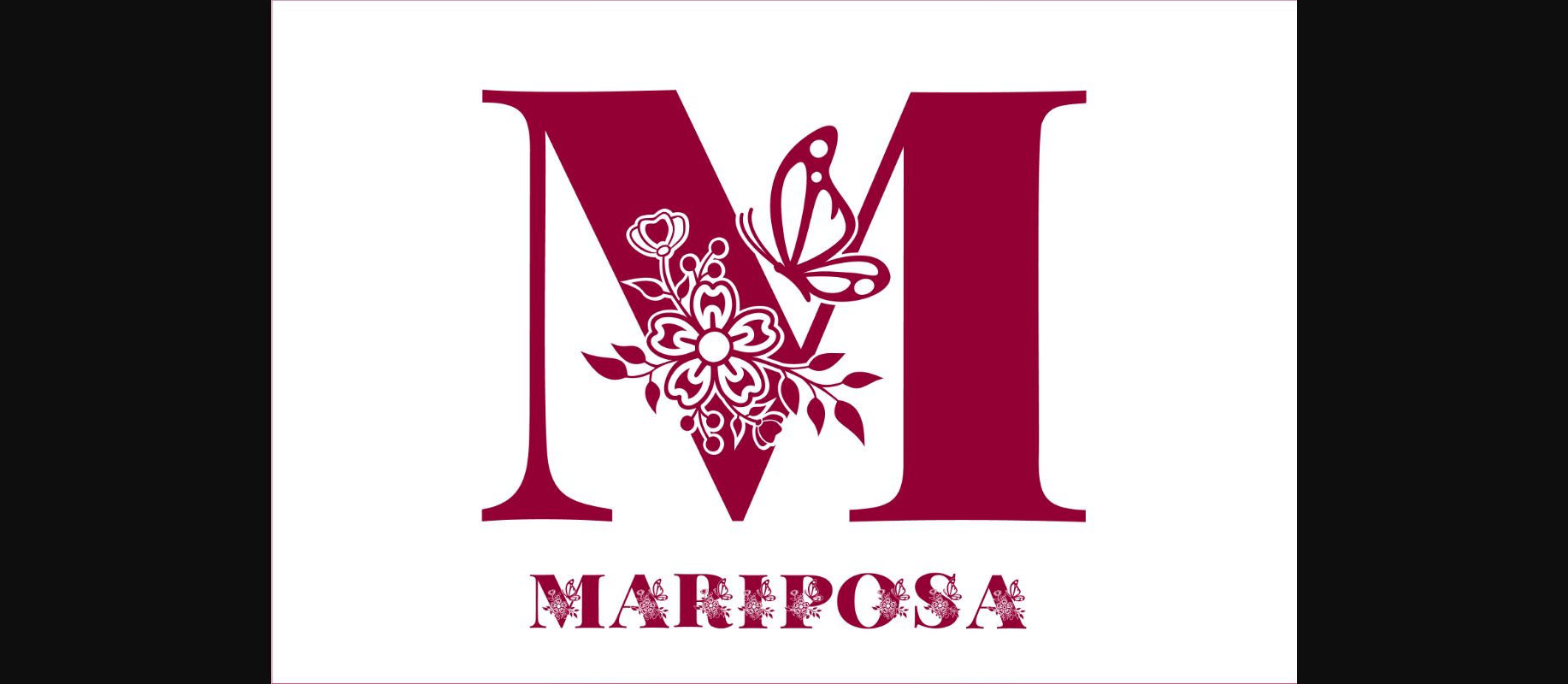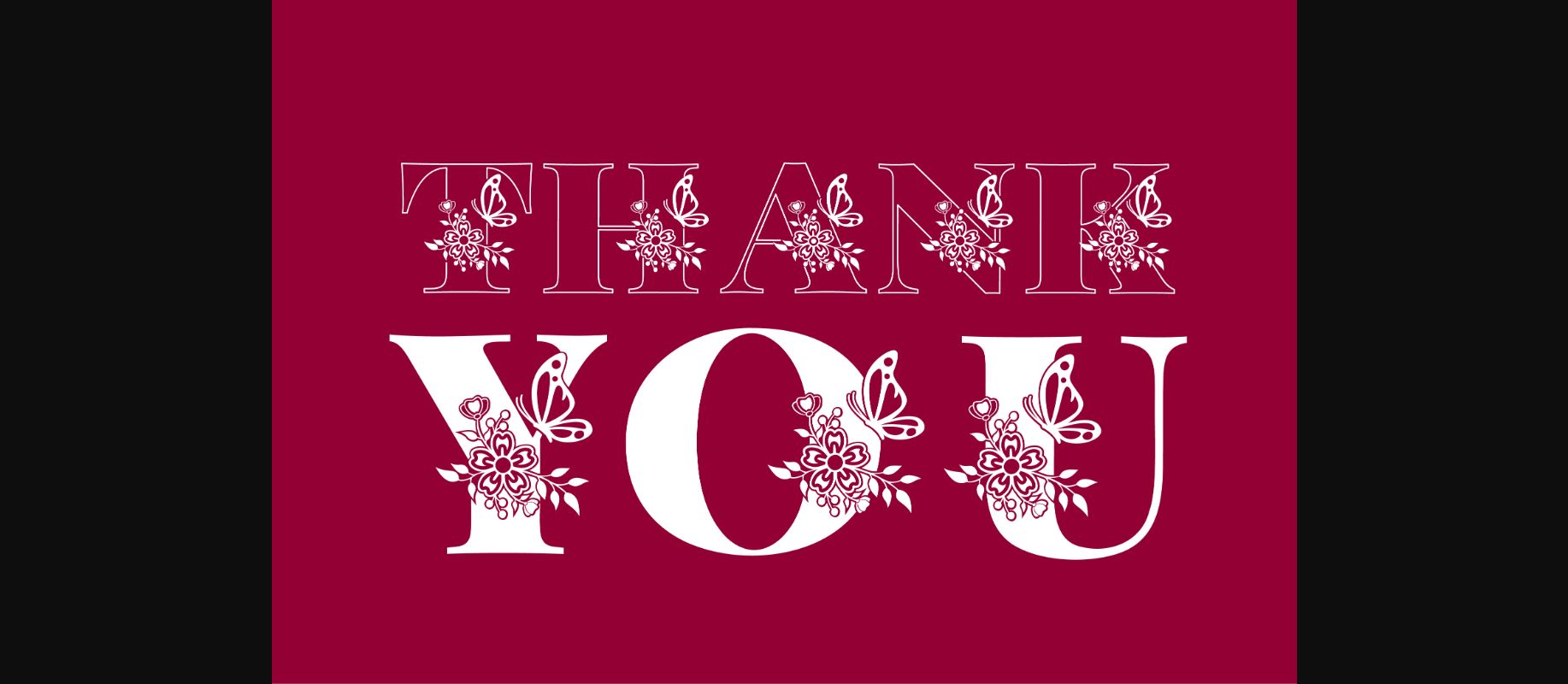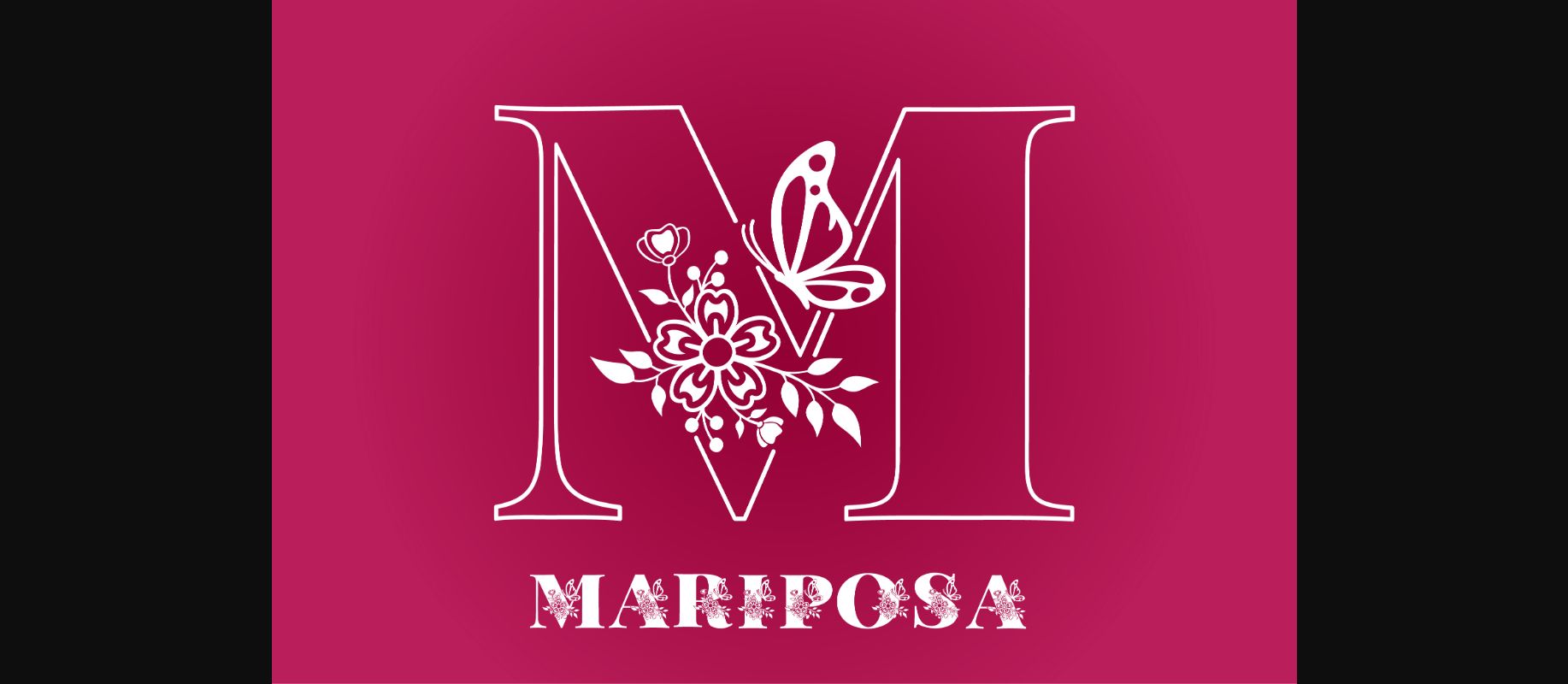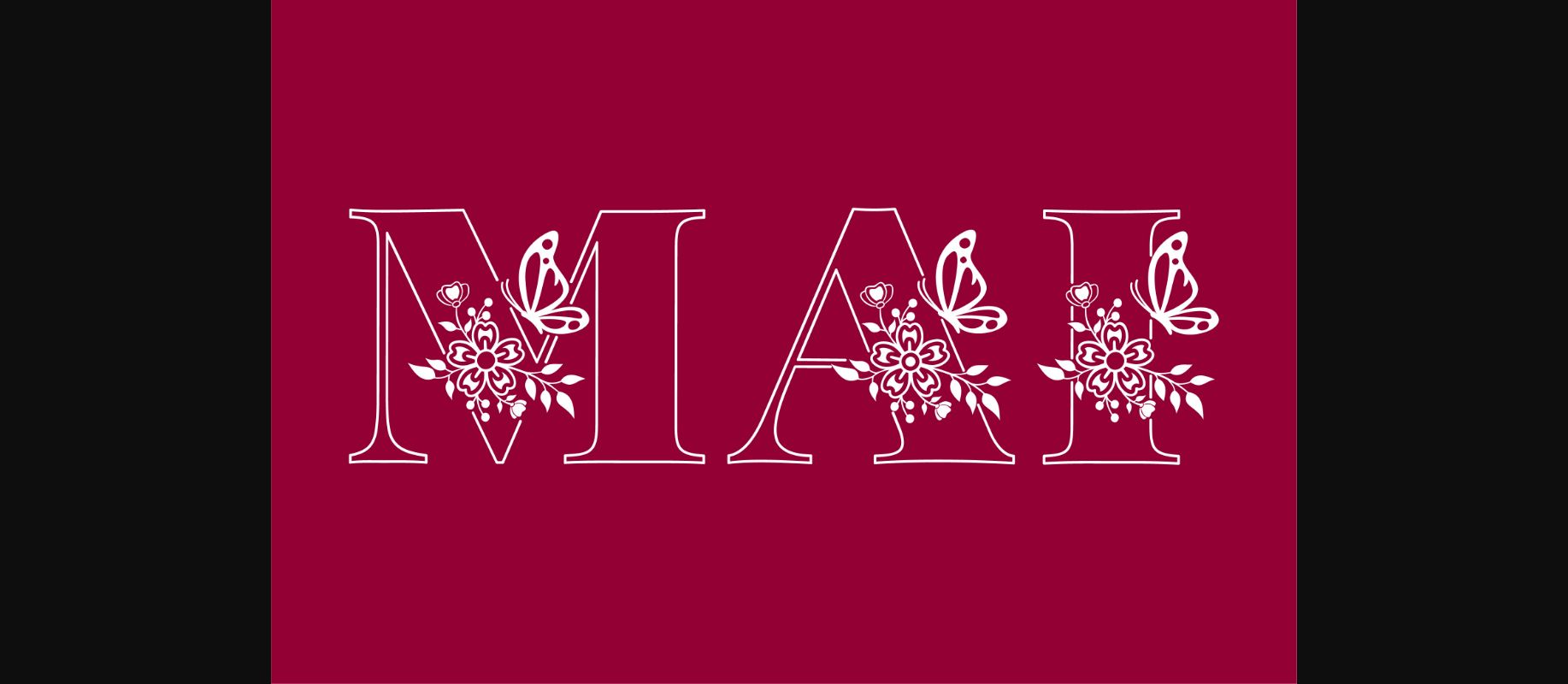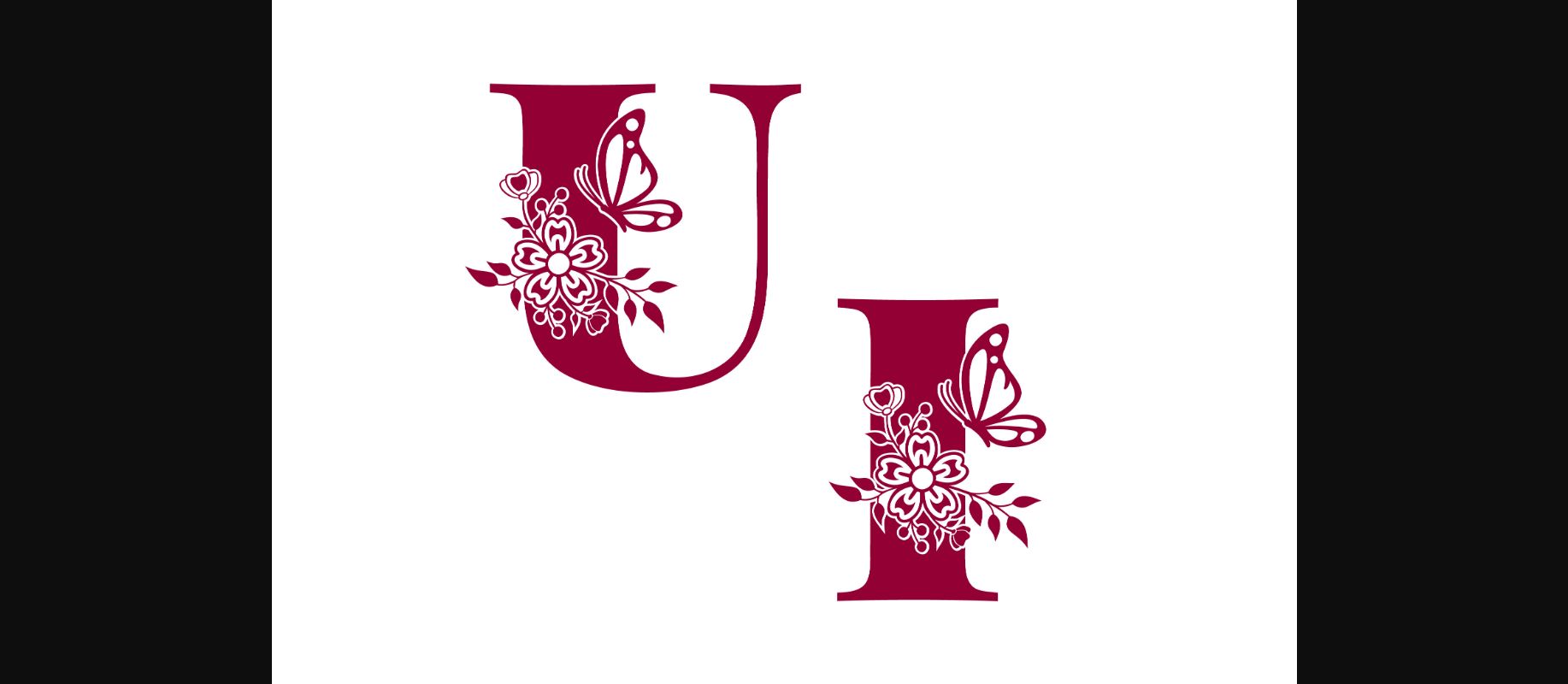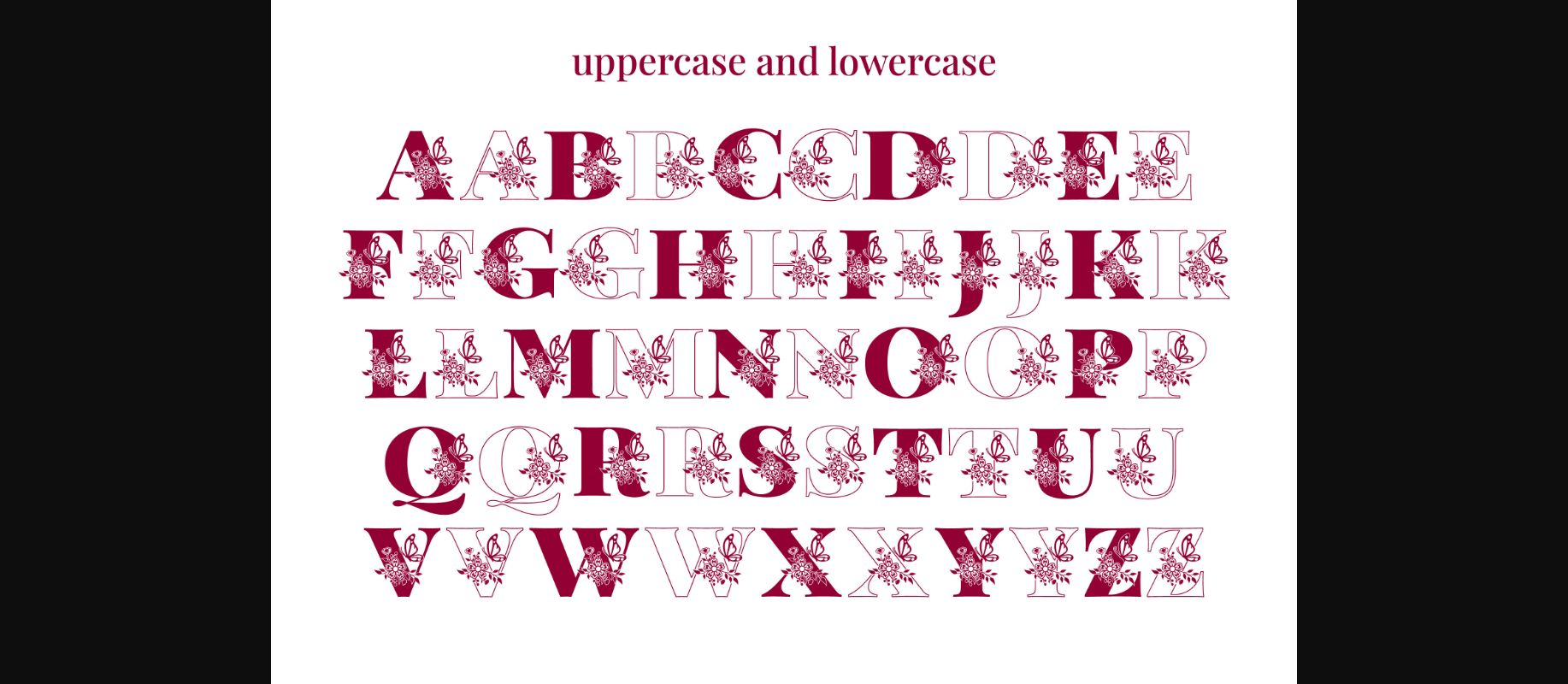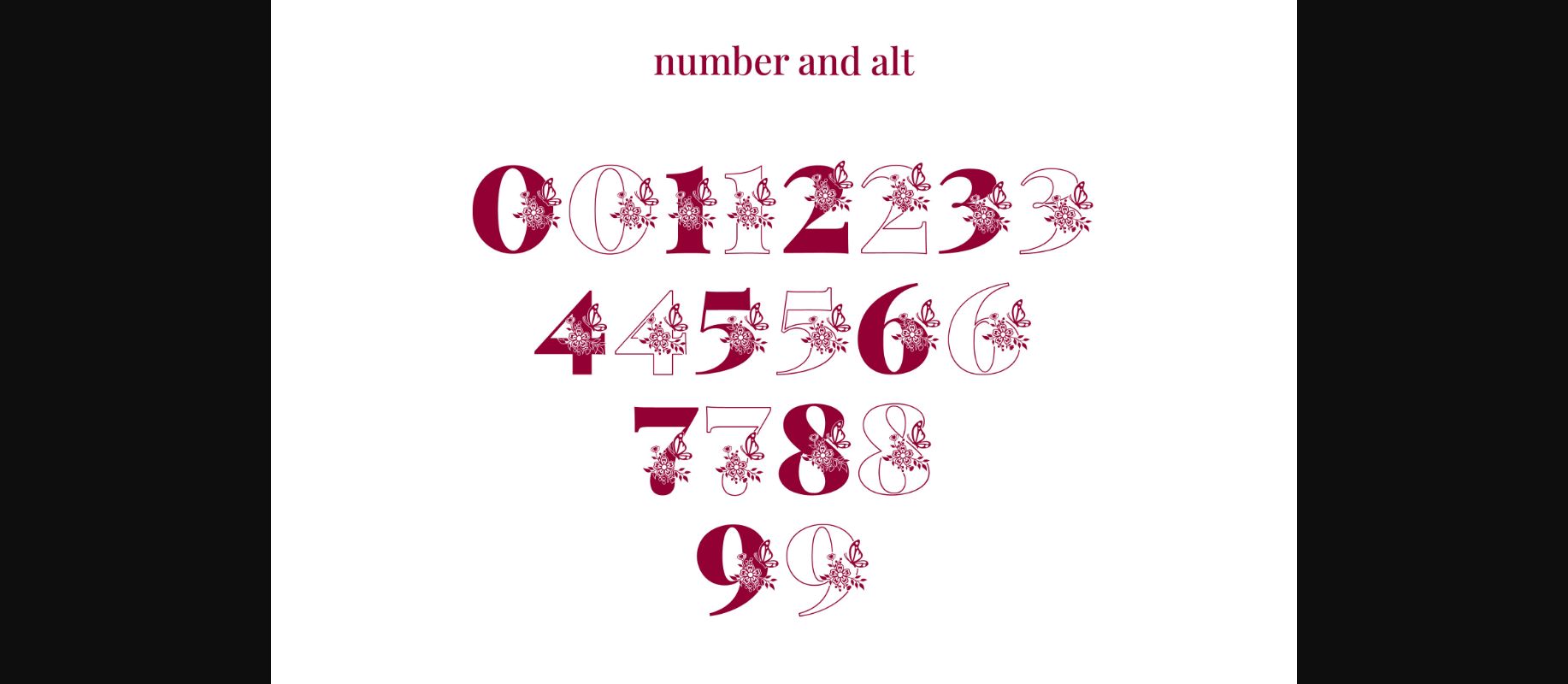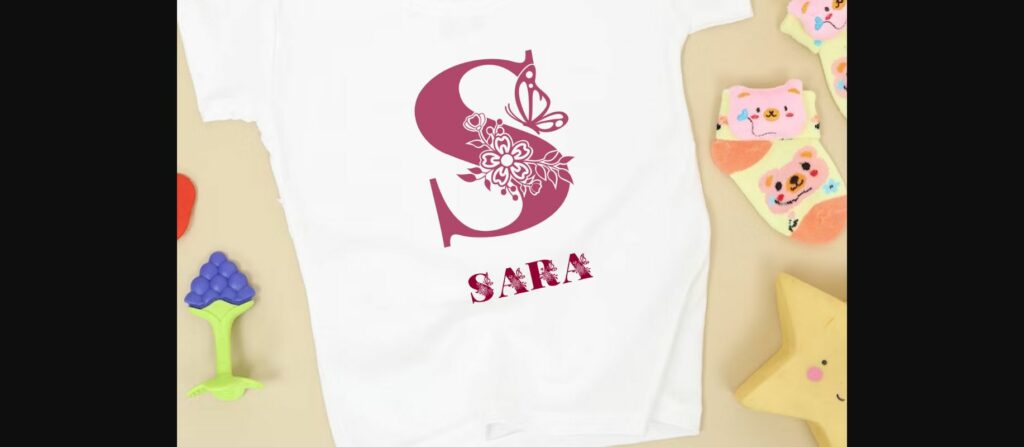
Mariposa is a unique decorative font, with elegant flower and butterfly. This font is perfect for logos, branding, crafts, social media posts, eye-catching, business cards, and other creative projects